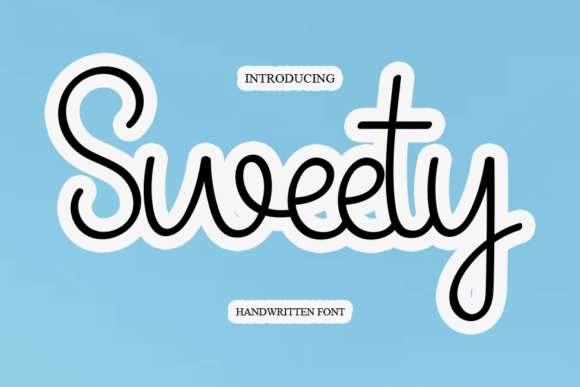
About Sweety Font
Sweety is a lovely, elegant and unique script font. Add this adaptable looking font to each of your love letters, wedding invitations or favorite design ideas, and you will be astounded by the outcome.